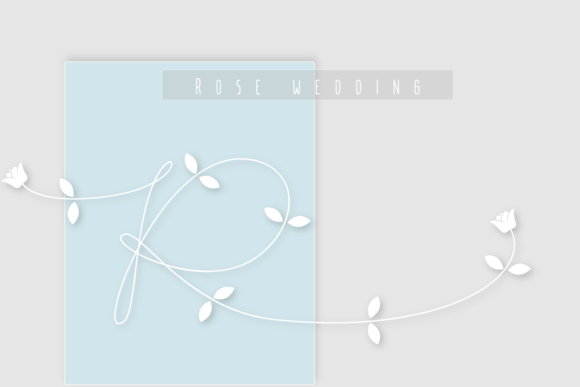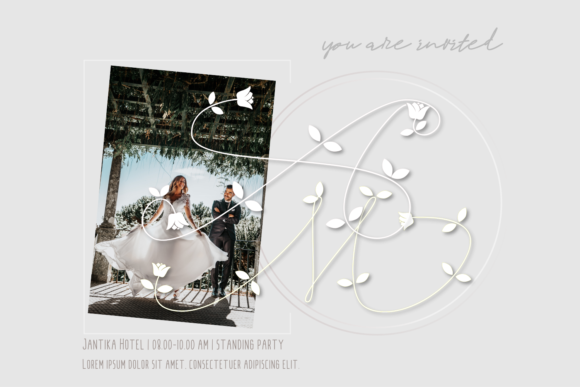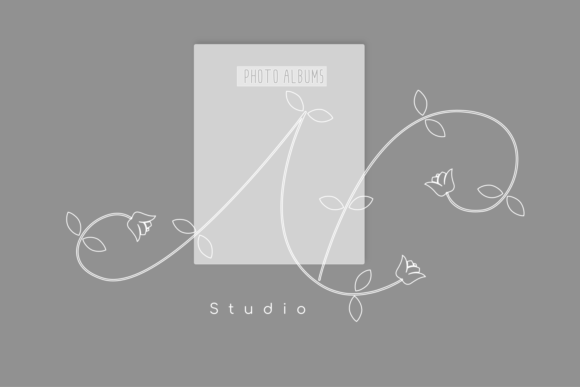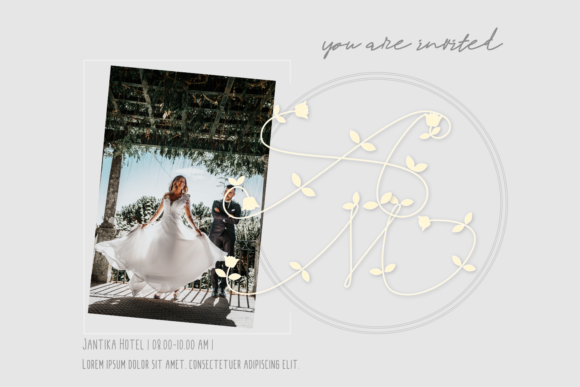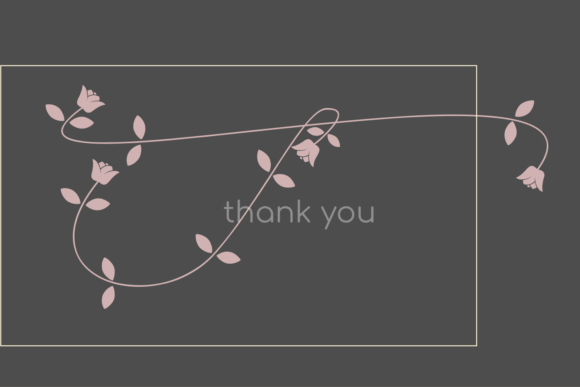
Aml Monogram Font: Elevate Your Designs with Elegance
Are you a designer or crafter looking for a font that exudes elegance and sophistication? Look no further than the Aml Monogram Font. This incredibly elegant decorative font is sure to capture your heart with its authentic feel, making it perfect for a wide range of design projects.
What is Aml Monogram Font?
Aml Monogram Font is a beautifully crafted decorative font that boasts an authentic and classic look. Its elegant design makes it an ideal choice for designers and crafters who want to add a touch of sophistication to their work. Whether you’re creating wedding invitations, stationery, social media posts, or greeting cards, this font is sure to impress.
Features of Aml Monogram Font
- Elegant Design: Aml Monogram Font features an incredibly elegant design that is sure to add a touch of sophistication to any project.
- Authentic Feel: The font’s authentic feel makes it perfect for creating designs that require a classic and timeless look.
- Versatile: Aml Monogram Font can be used for a wide range of design projects, including wedding invitations, stationery, social media posts, and greeting cards.
Uses of Aml Monogram Font
Aml Monogram Font is a versatile font that can be used for a variety of design projects. Here are some ideas to get you started:
- Wedding Invitations: Create beautiful and elegant wedding invitations that will set the tone for the big day.
- Stationery: Add a touch of sophistication to your stationery with Aml Monogram Font.
- Social Media Posts: Create eye-catching social media posts that will grab the attention of your followers.
- Greeting Cards: Design cute and elegant greeting cards for special occasions.
Why Choose Aml Monogram Font?
There are many reasons why Aml Monogram Font is a great choice for designers and crafters. Here are a few:
- Unique Design: Aml Monogram Font features a unique design that will set your work apart from others.
- High-Quality: The font is of high quality, making it perfect for professional designs.
Tips for Using Aml Monogram Font
Here are some tips for using Aml Monogram Font:
- Use it for Headings: Aml Monogram Font is perfect for headings and titles.
- Pair it with Other Fonts: Pair Aml Monogram Font with other fonts to create a unique and interesting design.
- Use it for Digital and Print Designs: Aml Monogram Font can be used for both digital and print designs.
Aml Monogram Font is an incredibly elegant decorative font that is perfect for designers and crafters who want to add a touch of sophistication to their work. With its authentic feel and versatile design, it’s ideal for a wide range of design projects. Whether you’re creating wedding invitations, stationery, social media posts, or greeting cards, Aml Monogram Font is sure to impress.